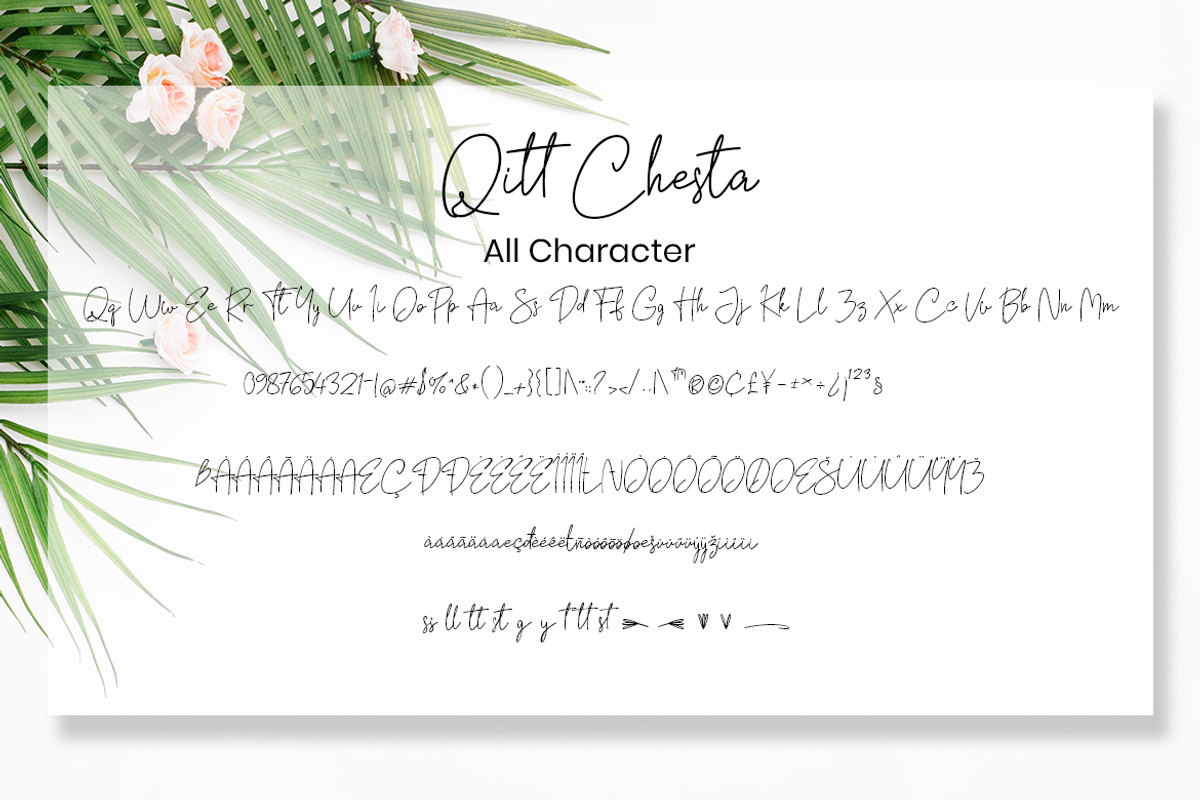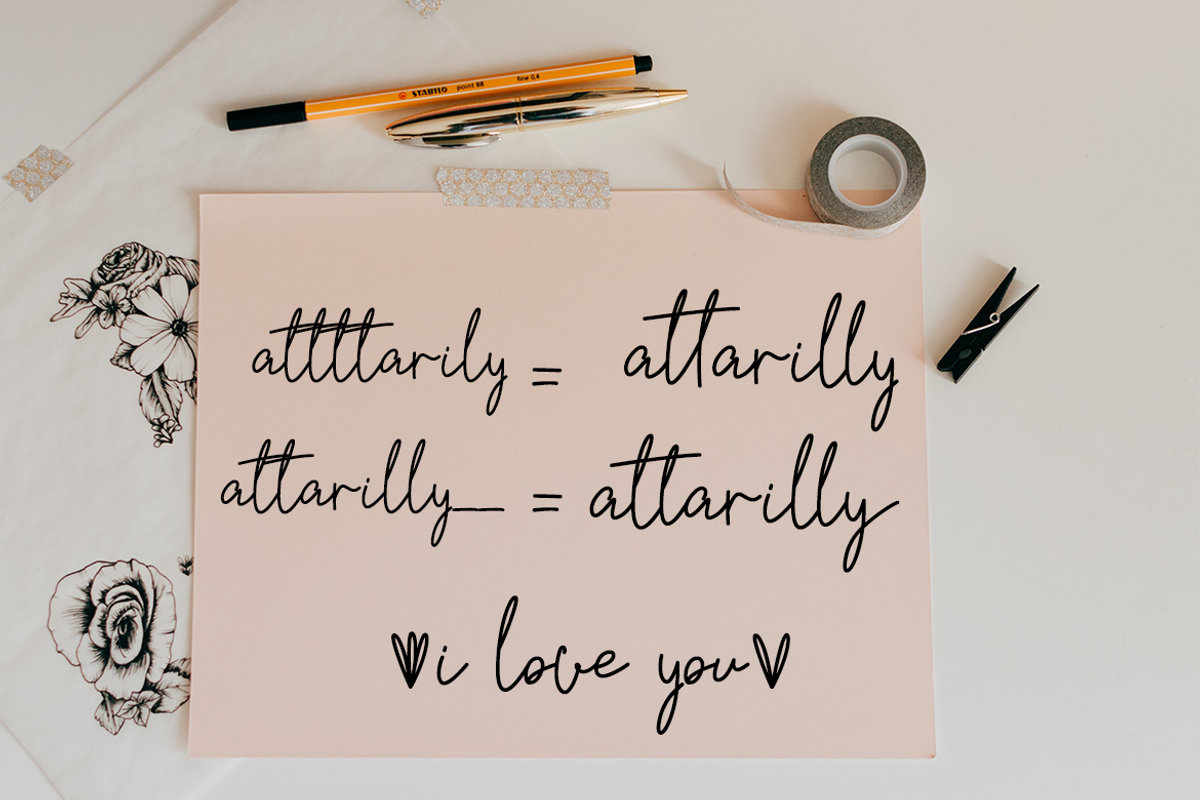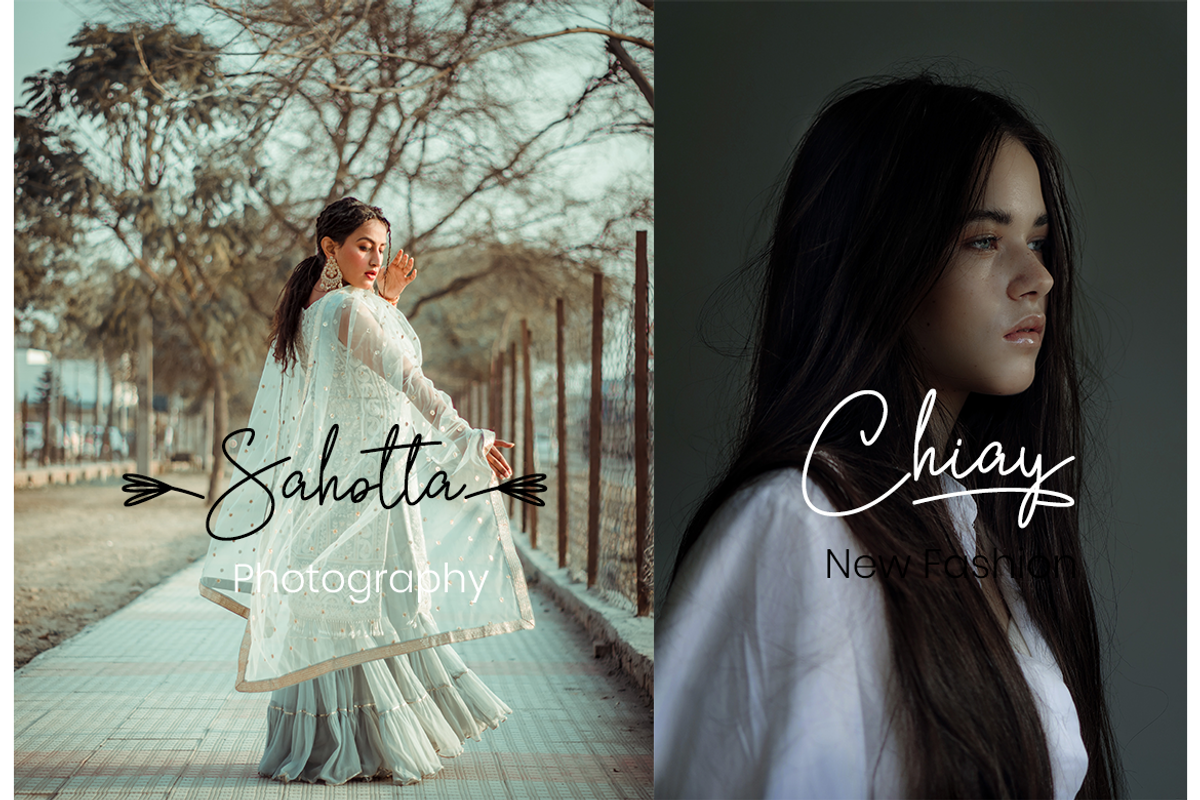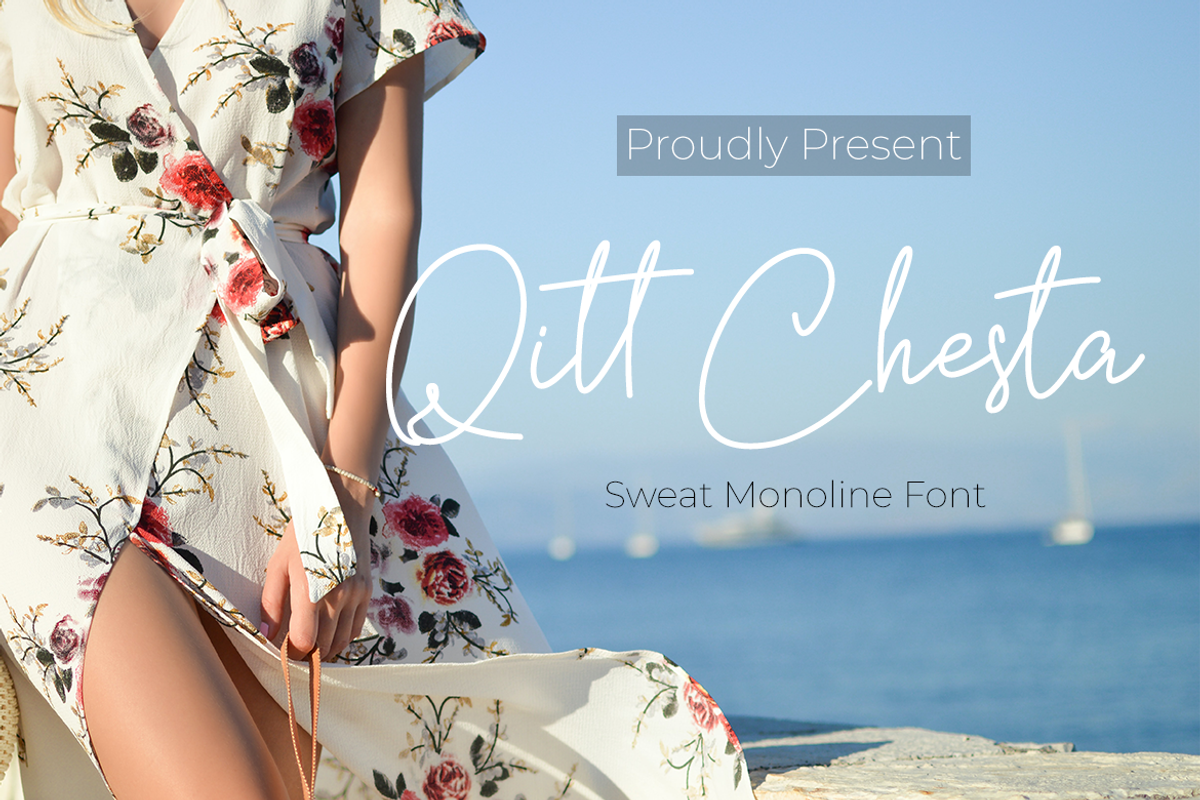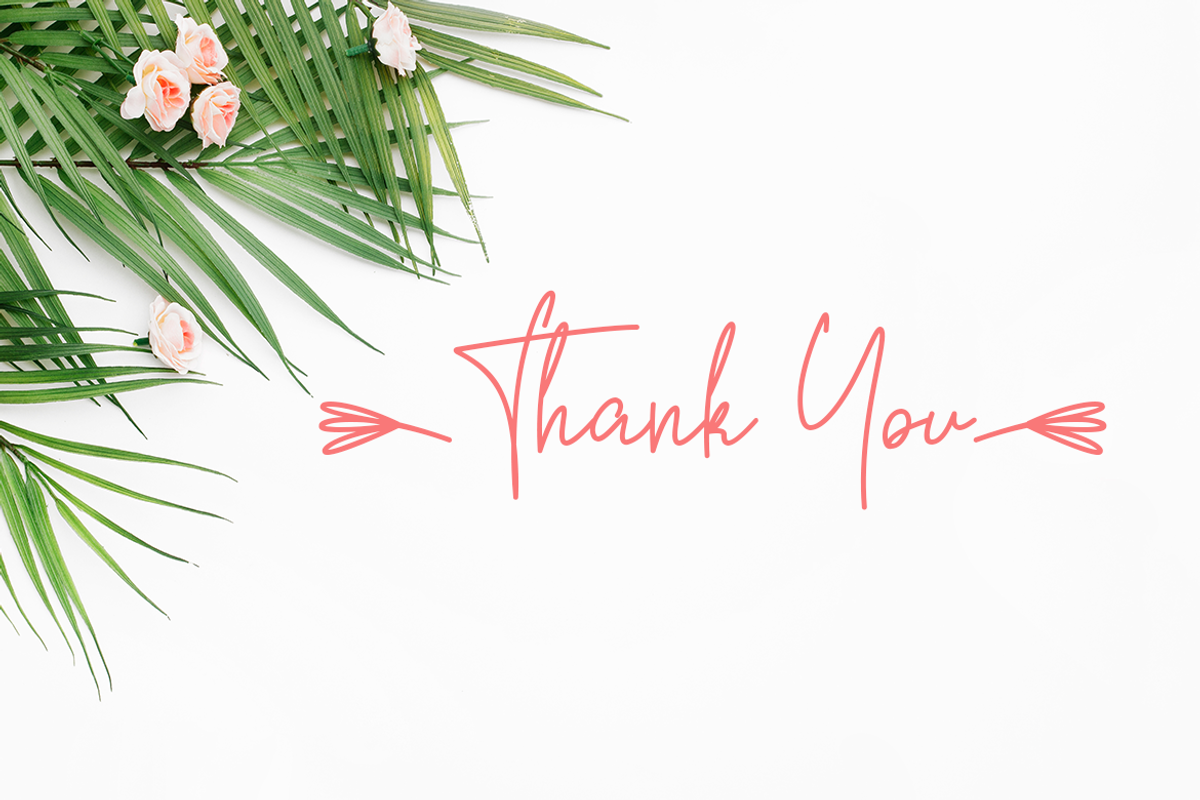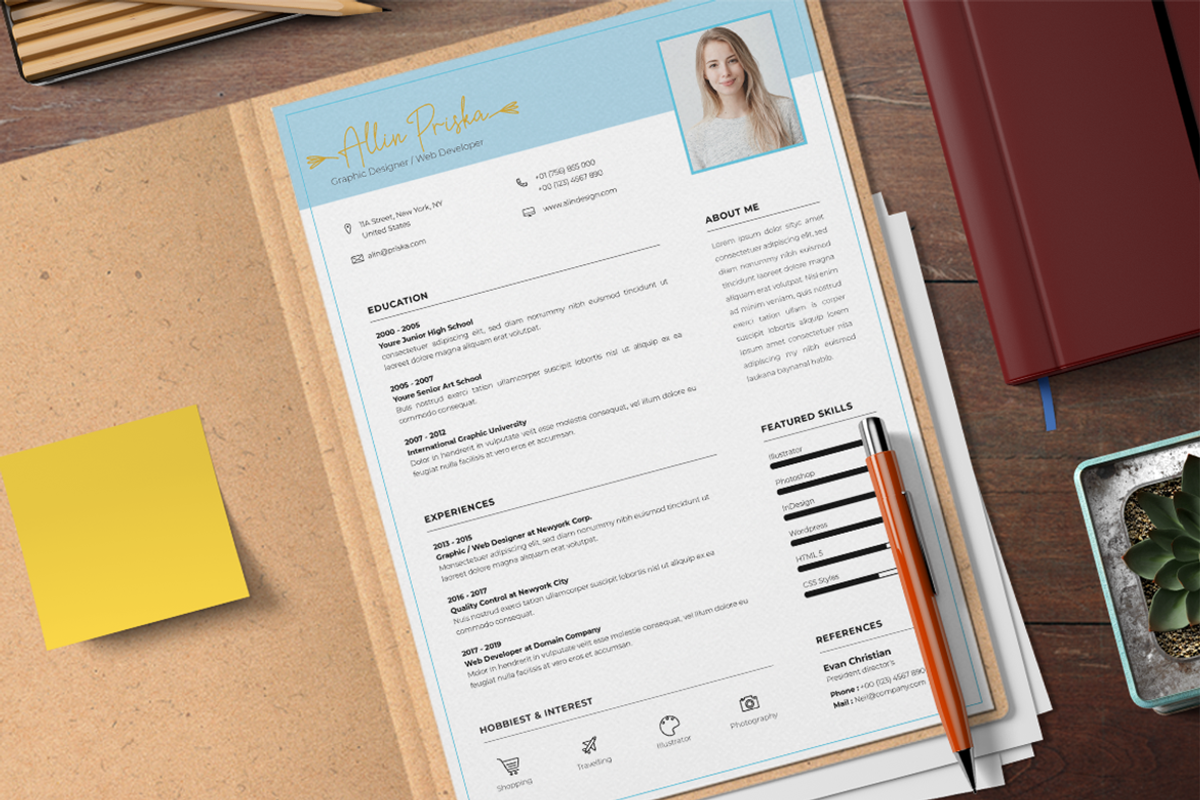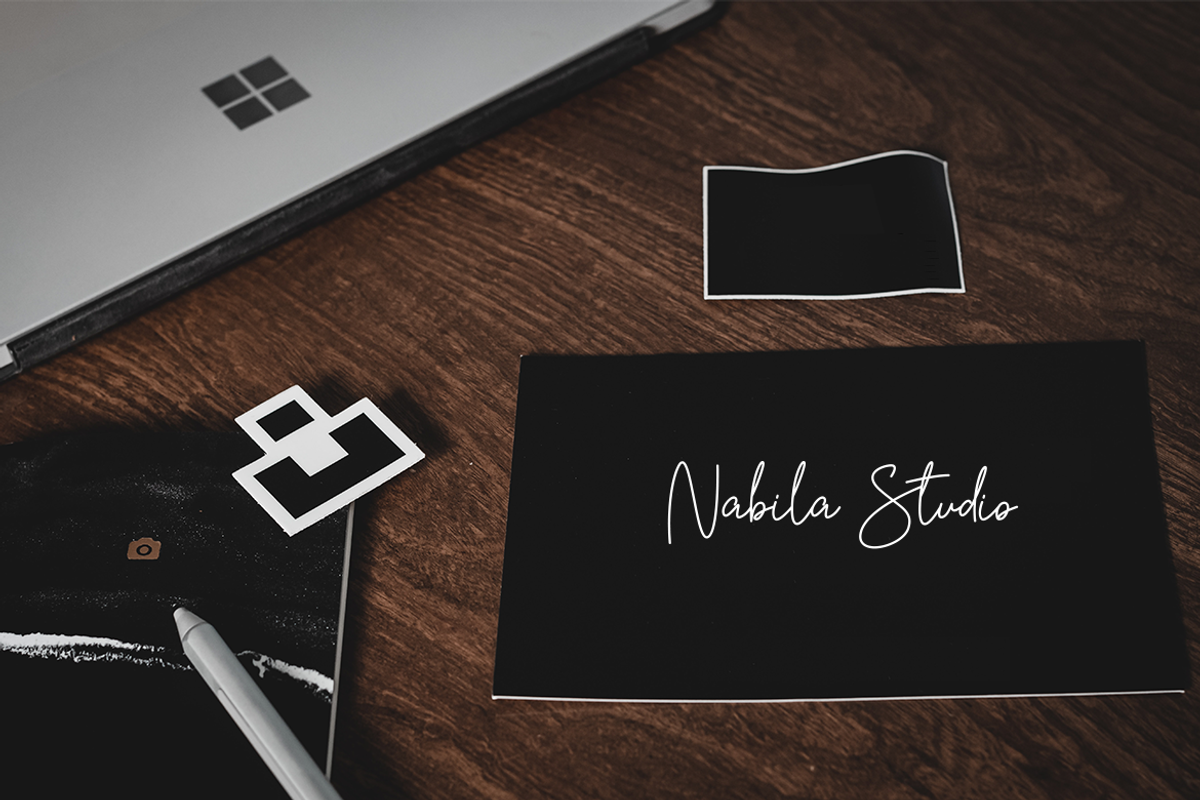
Qitt Chesta Script Monoline
Qitt Chesta is an elegant and flowing handwritten font. It is PUA encoded which means you can access all of the glyphs and swashes with ease! It maintains its classy calligraphic influences while feeling contemporary and fresh. Fall in love with this font and bring your projects to the highest levels!